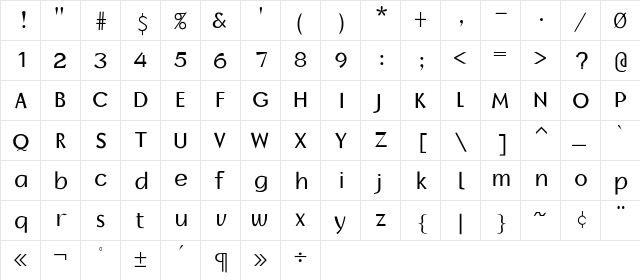
BorrorRegular Font Preview
BorrorRegular Regular
BorrorRegular Font Details
Design Context for BorrorRegular Typeface
BorrorRegular takes a measured approach to typography — its balanced proportions and neutral character make it a reliable workhorse for both digital and print work.